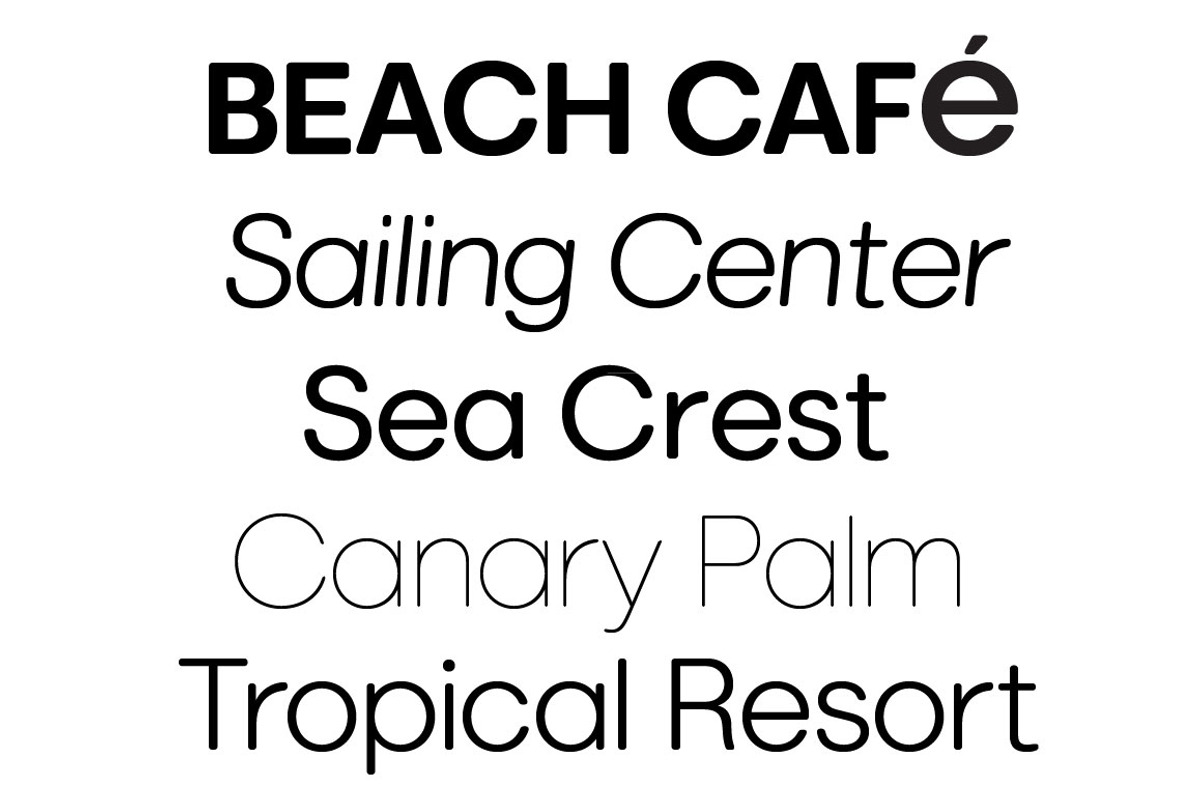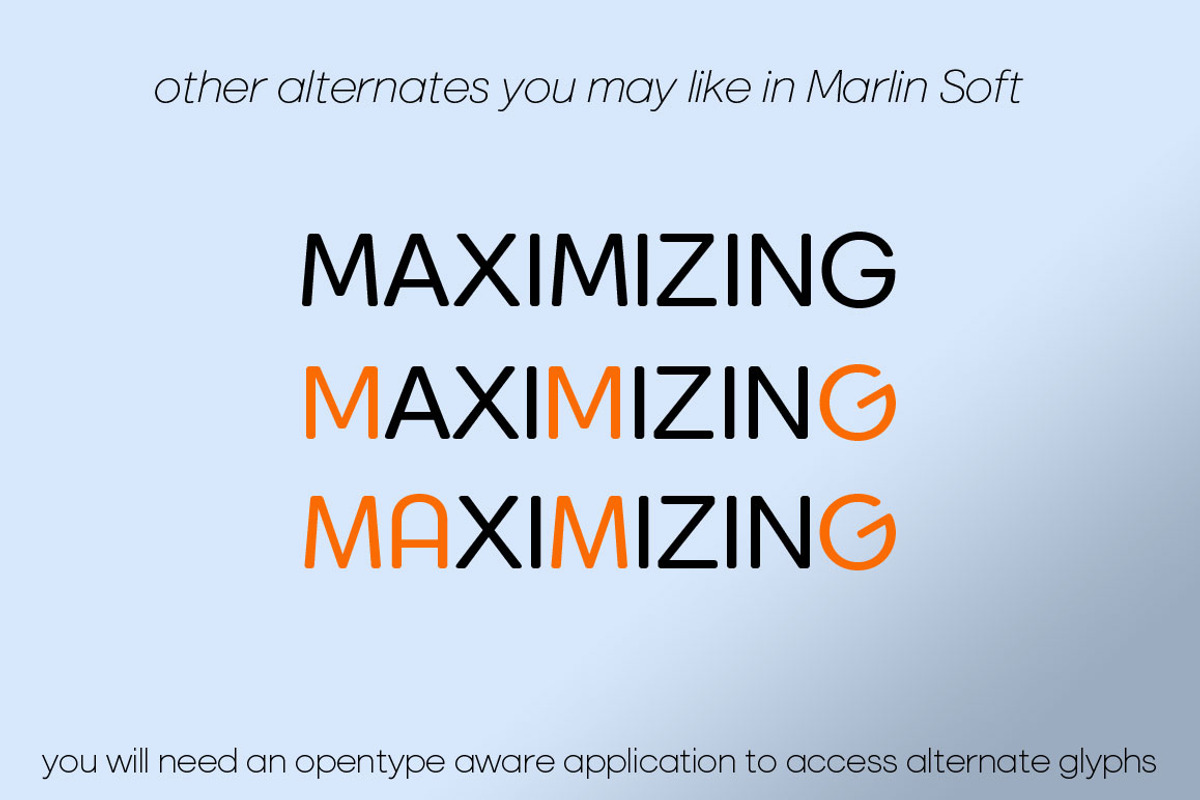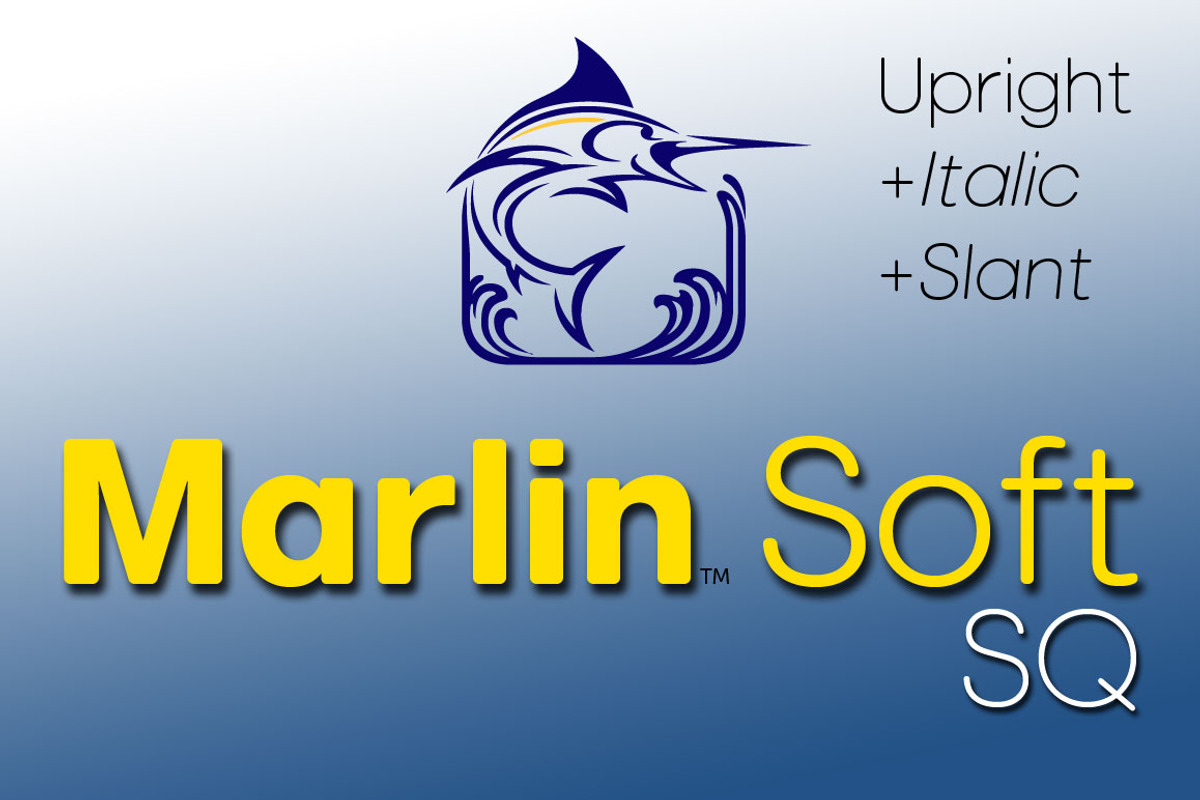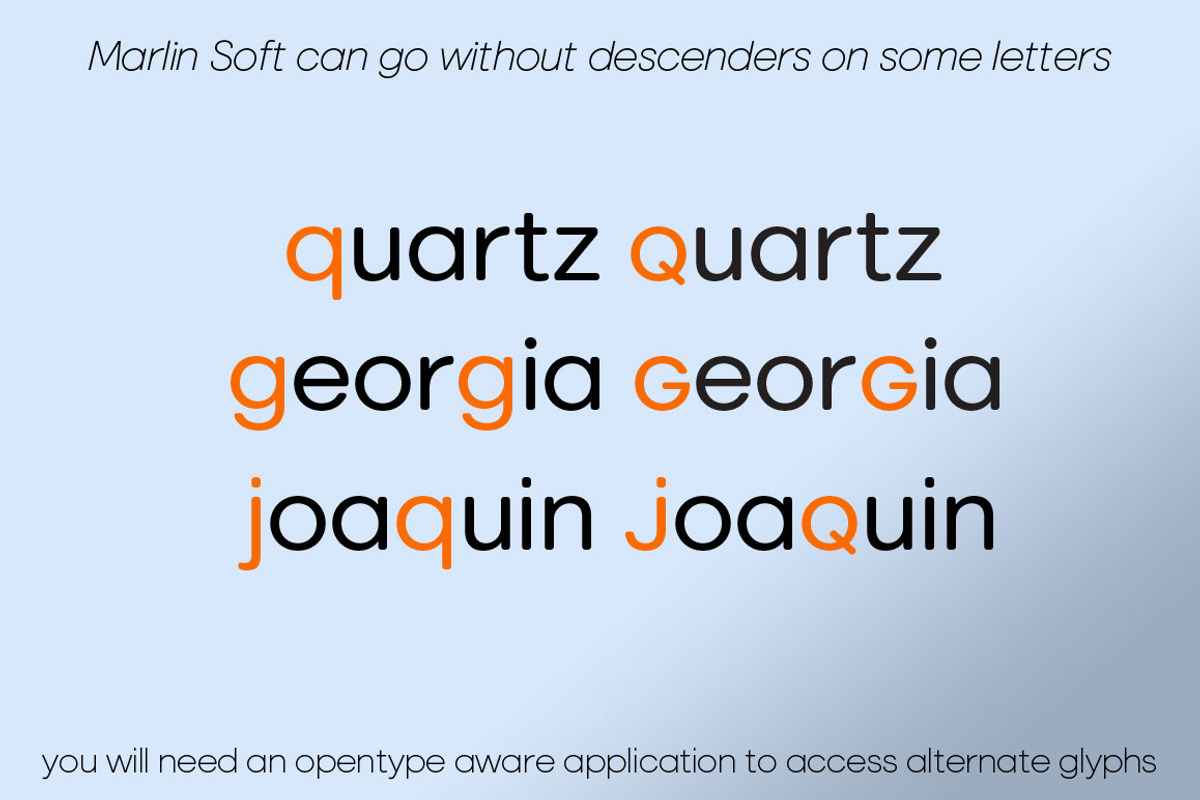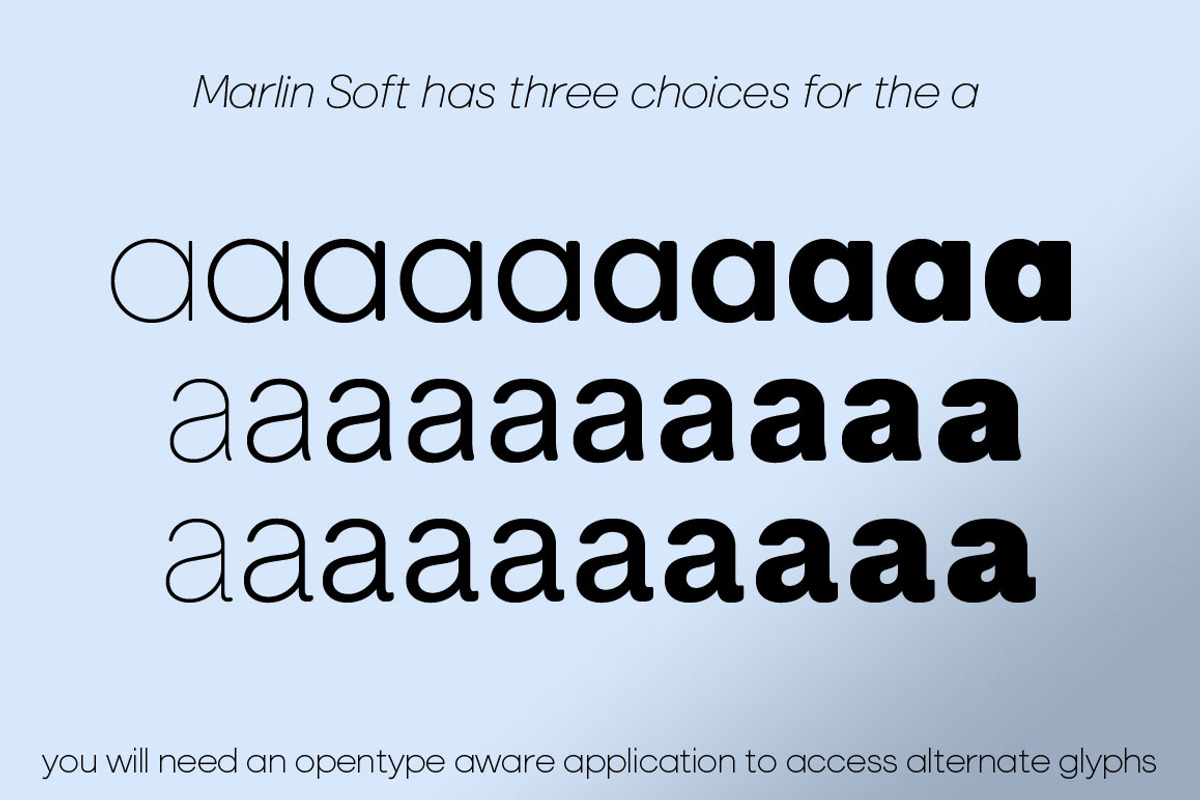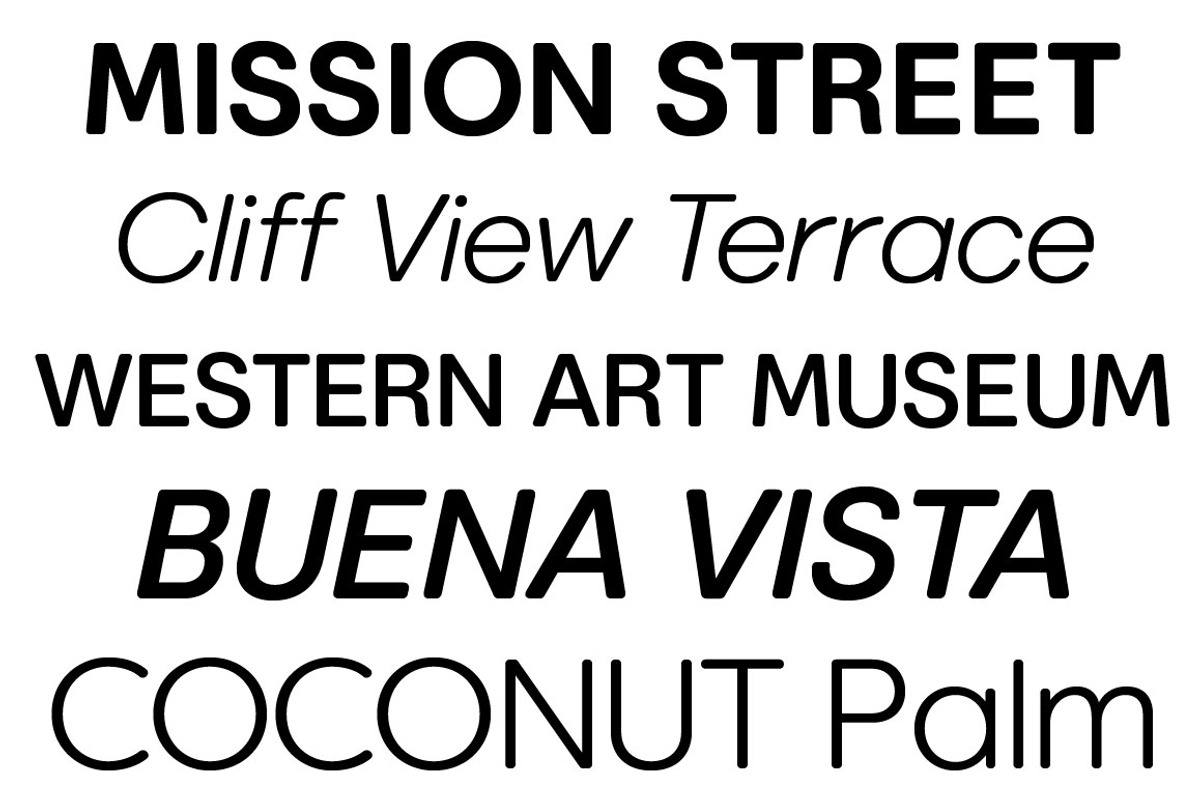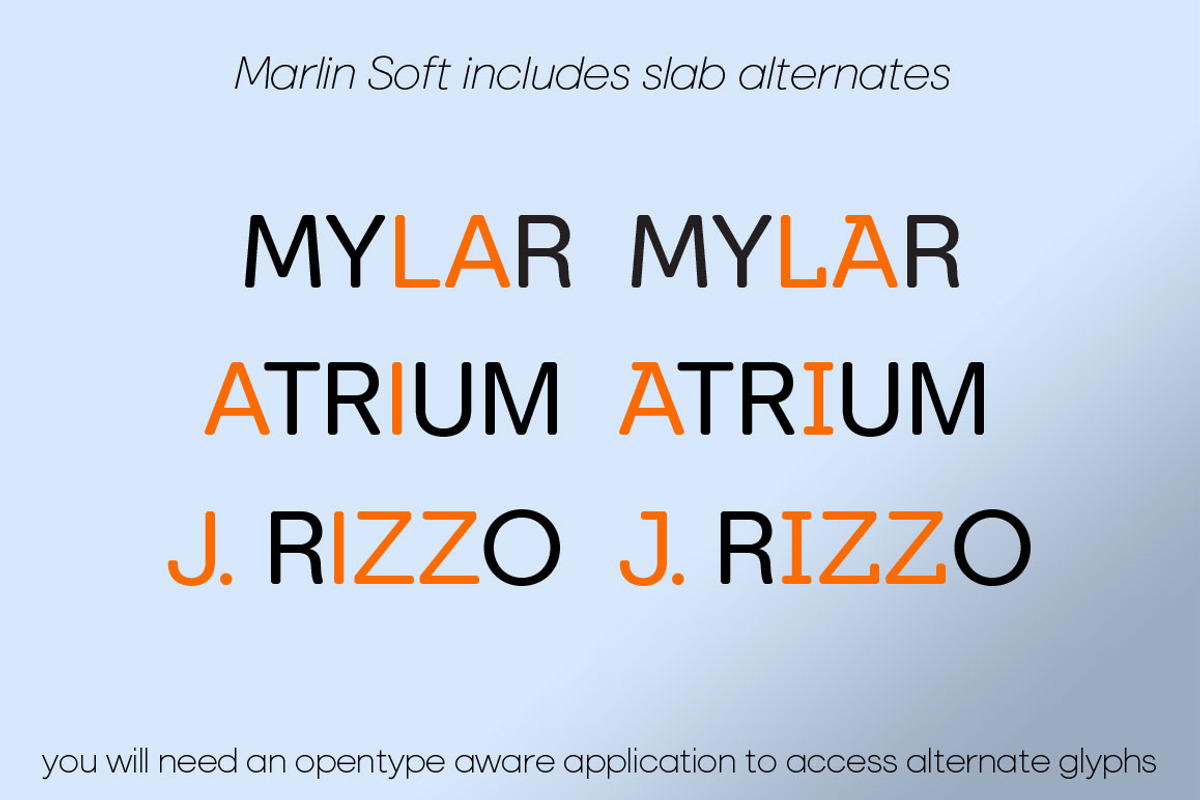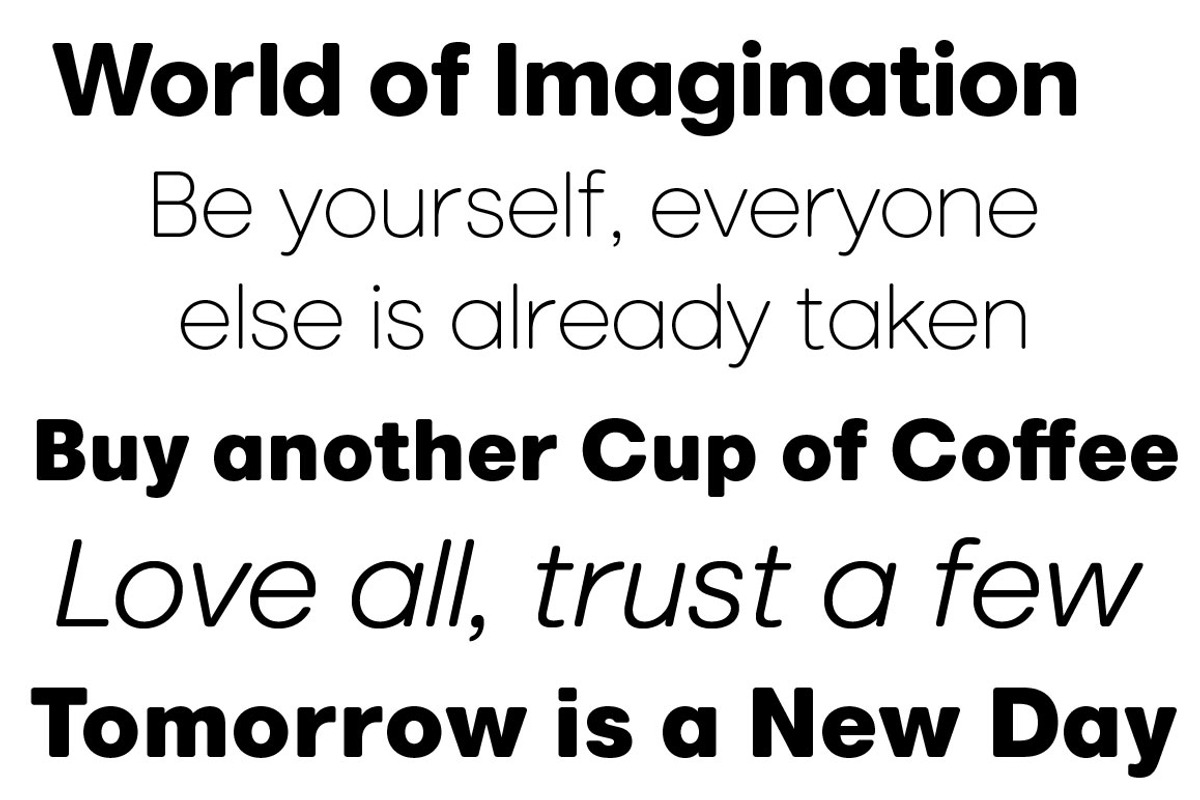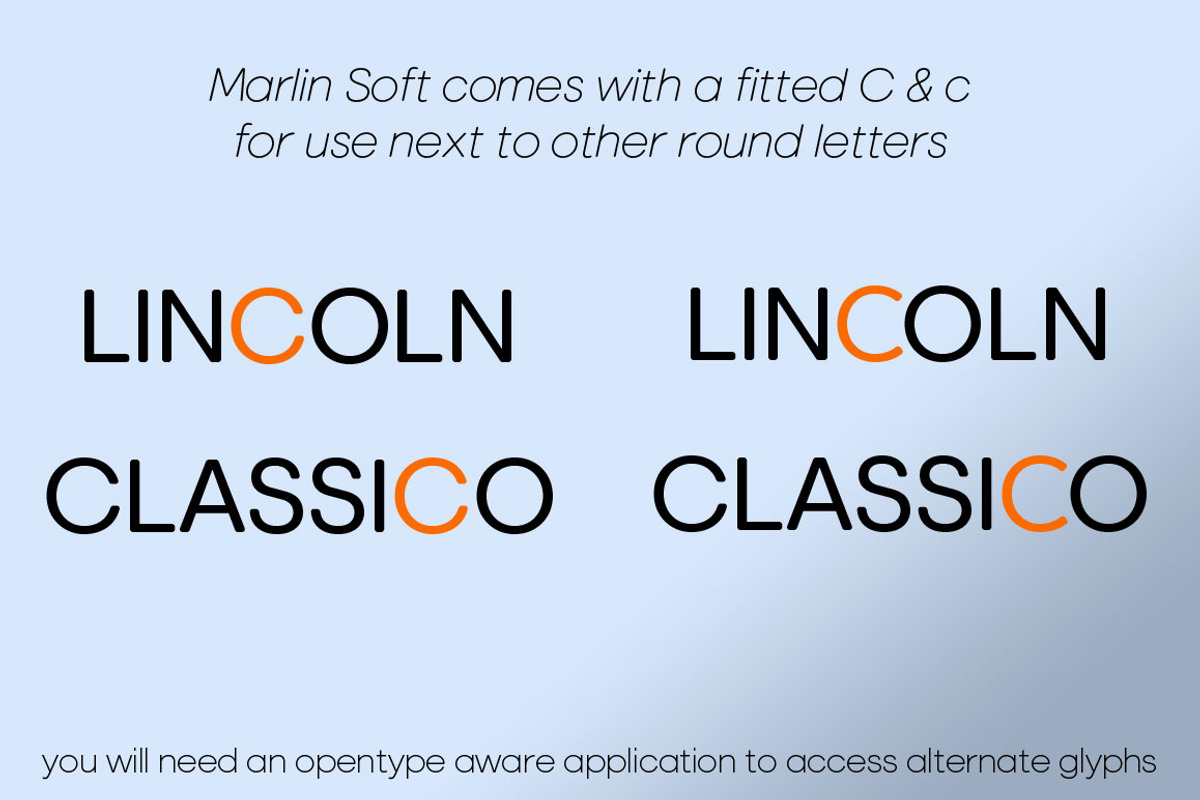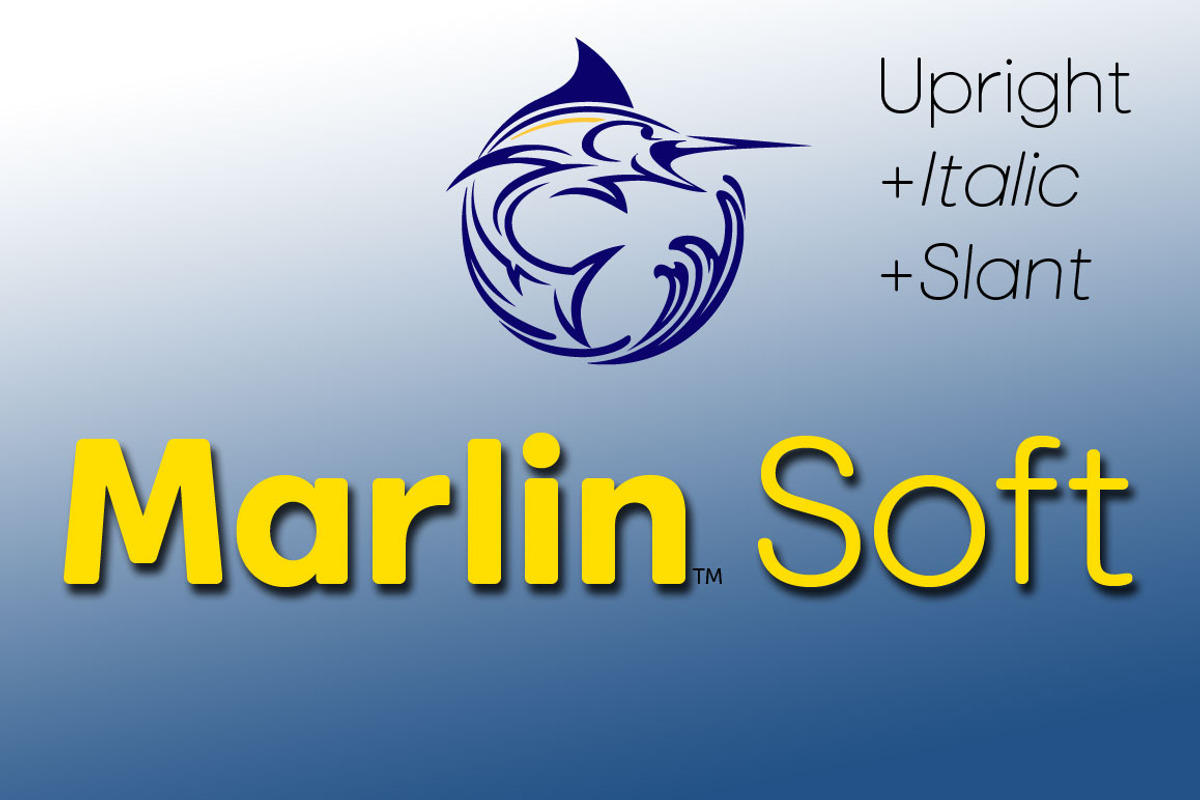
Marlin Soft Complete
Marlin Soft and Marlin Soft SQ is a rounded edge version of our Marlin Sans font.
Marlin Soft contains alternate glyphs, you will need an Opentype aware application such as Adobe Illustrator to access alternates, Windows character map can not be used to access alternate glyphs